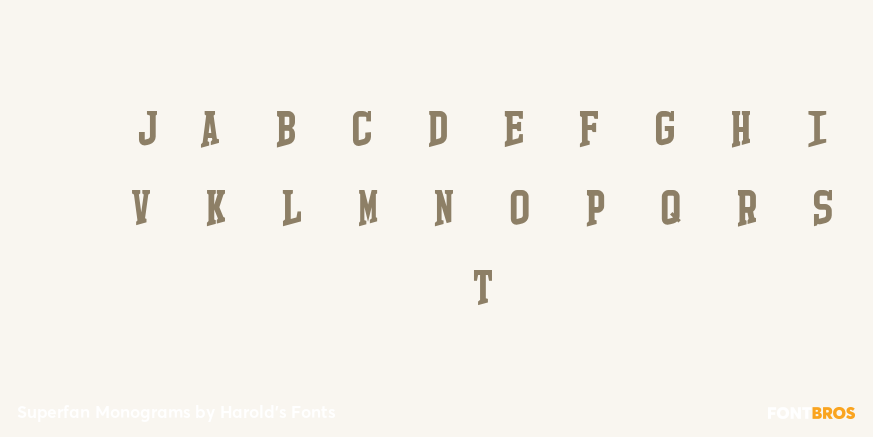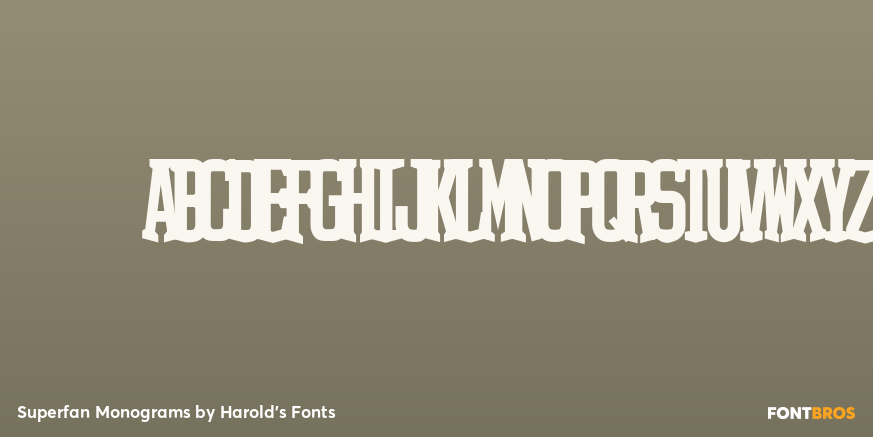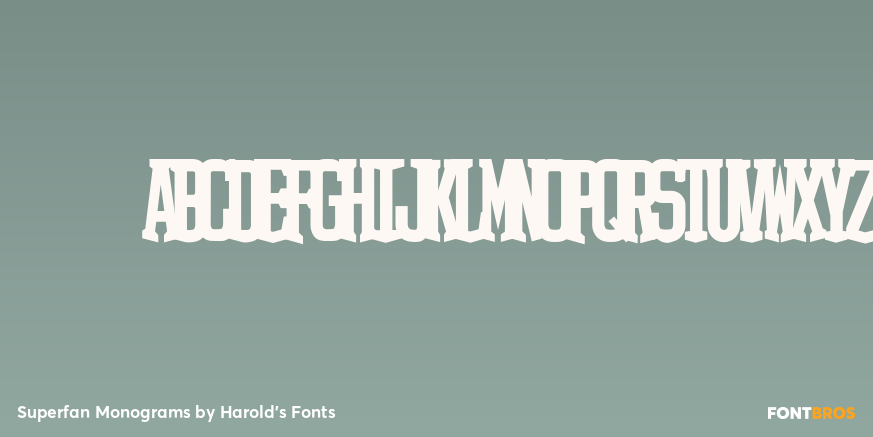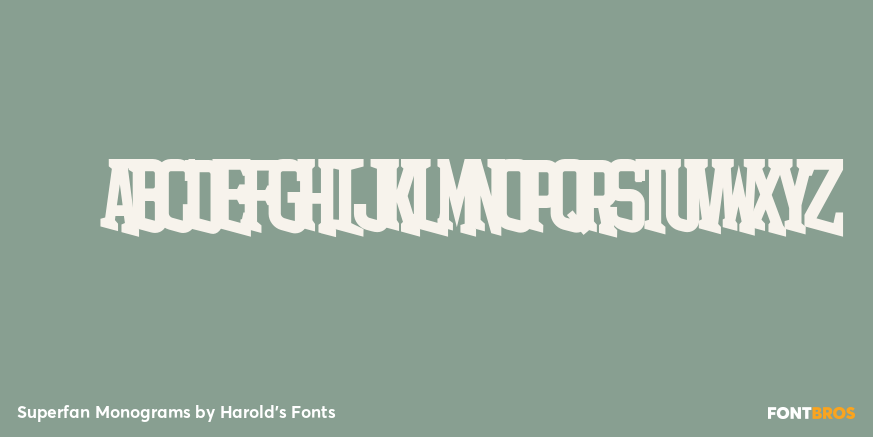
Superfan Monograms
Font Family by Harold's Fonts
Superfan Monograms is a unique font to create custom 1-, 2-, or 3-letter monograms in a professional sports style. Use the variety of decorative frames to make a different style for each of the players on your team.